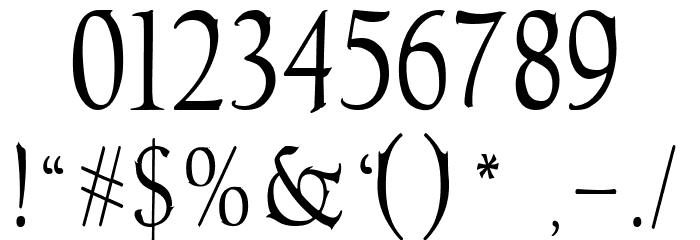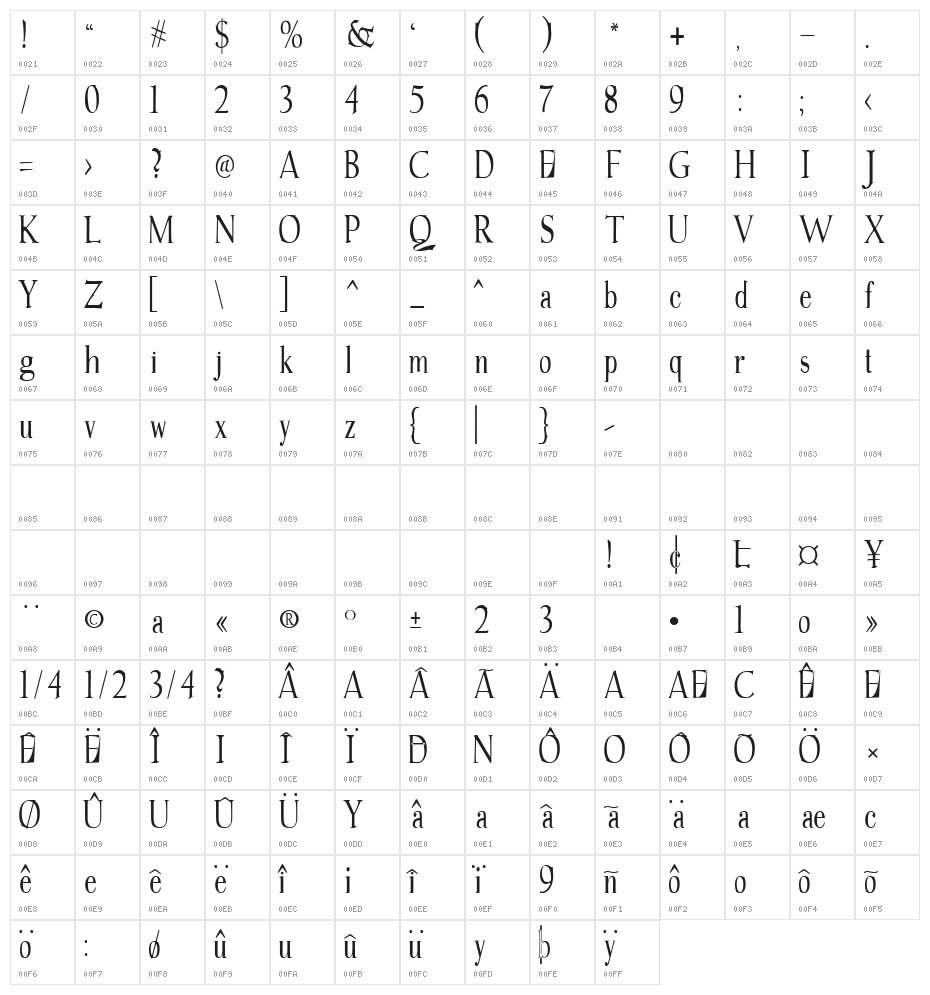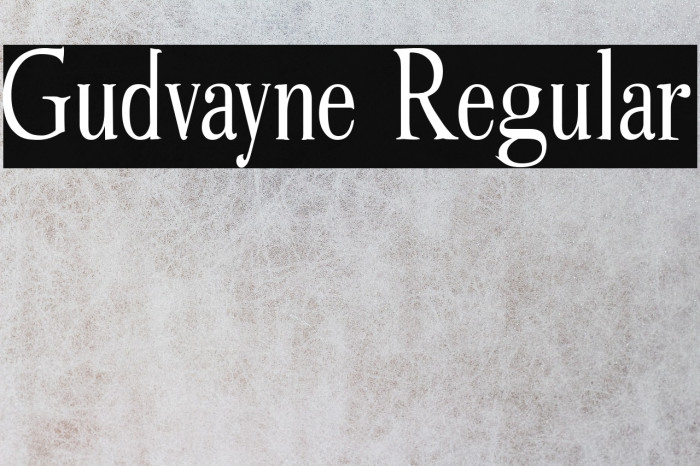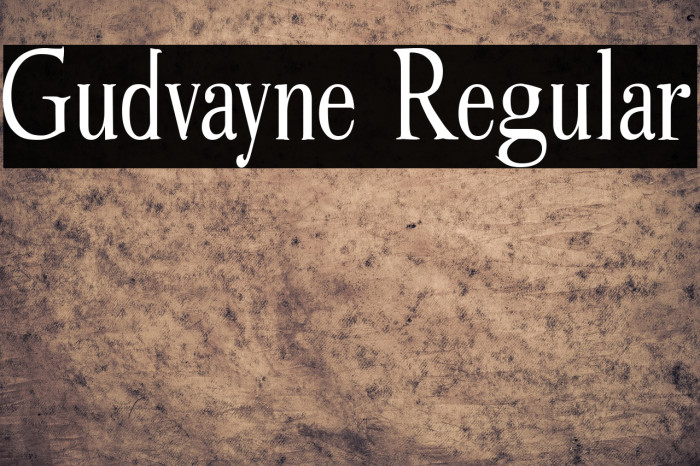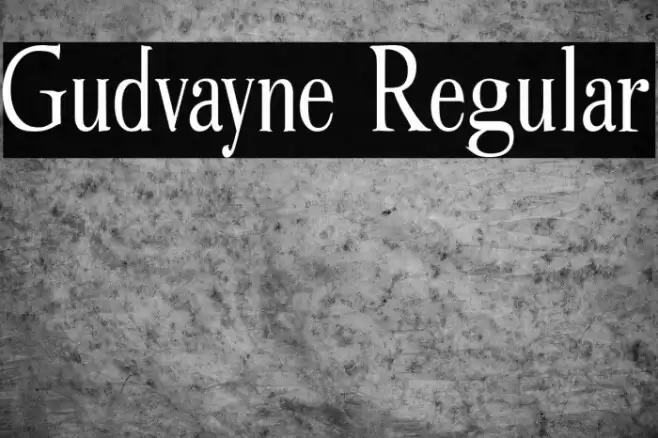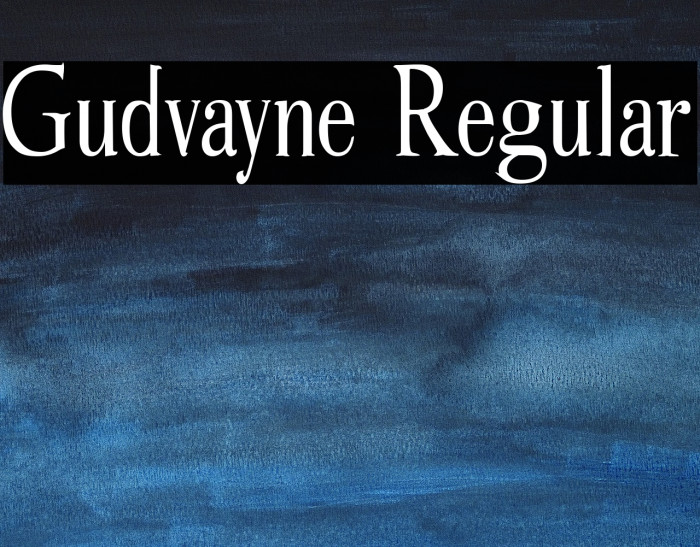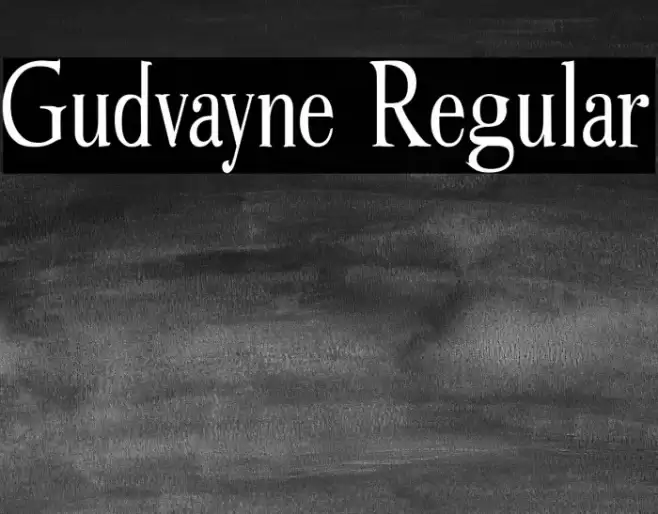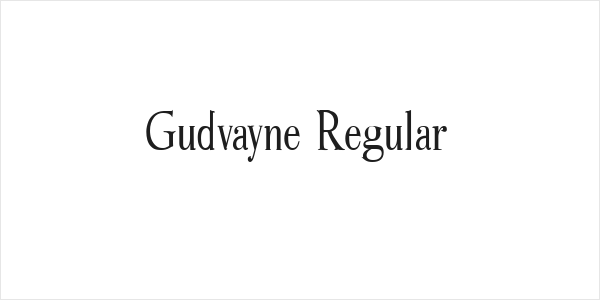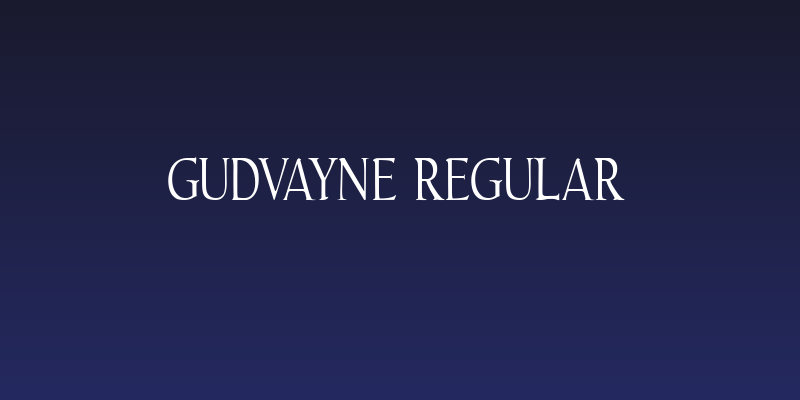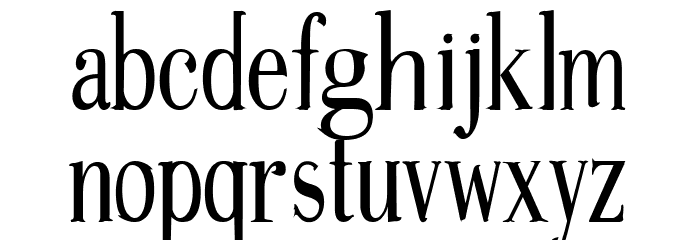
Gudvayne Regular Font
Gudvayne Regular Description
This font features a classic serif style with a modern twist, characterized by its elegant and slightly elongated letterforms. The serifs are pronounced, adding a touch of sophistication and readability. The uppercase letters are bold and commanding, while the lowercase letters maintain a graceful flow. The numerals are distinct and well-proportioned, ensuring clarity in numerical data. Special characters are thoughtfully designed, maintaining the overall aesthetic of the typeface. The font's balance between traditional serif elements and contemporary design makes it versatile for various applications.